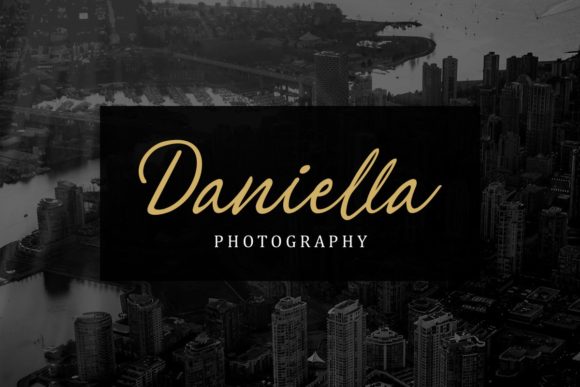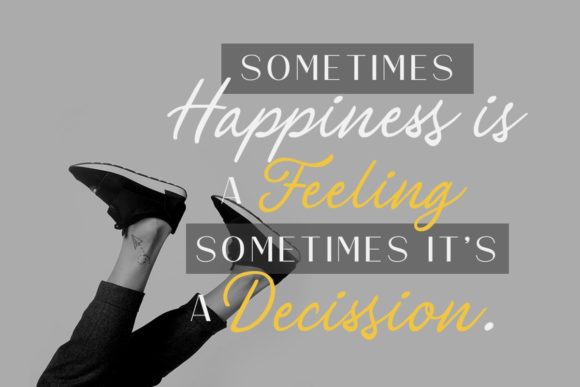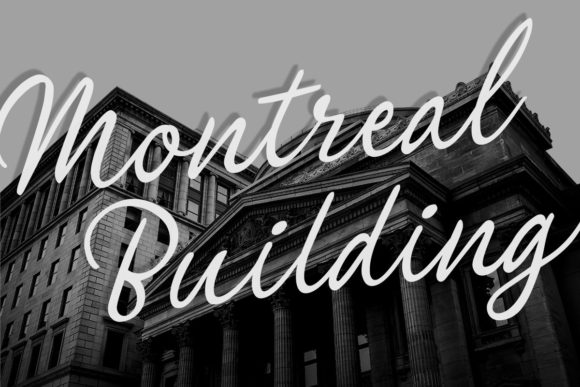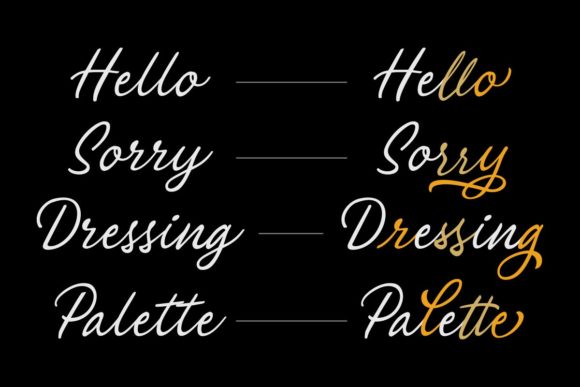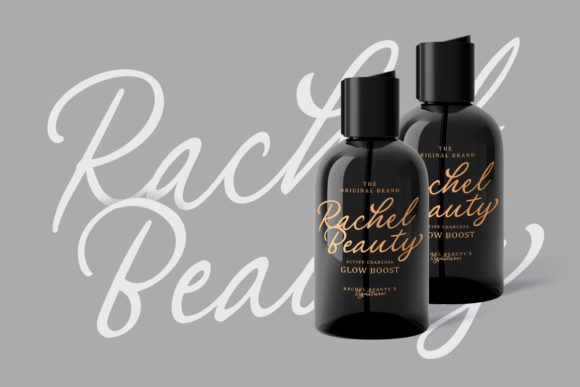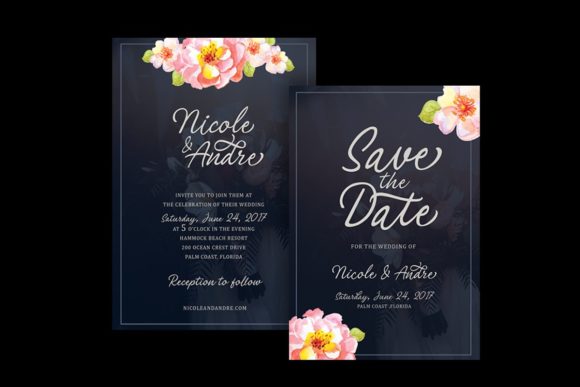
Philomena Font – Free Download
Introduction to Philomena Font
Philomena is a unique and modern font family with unique style.
Fall in love with its playful look & feel .
Why Choose Philomena Font?